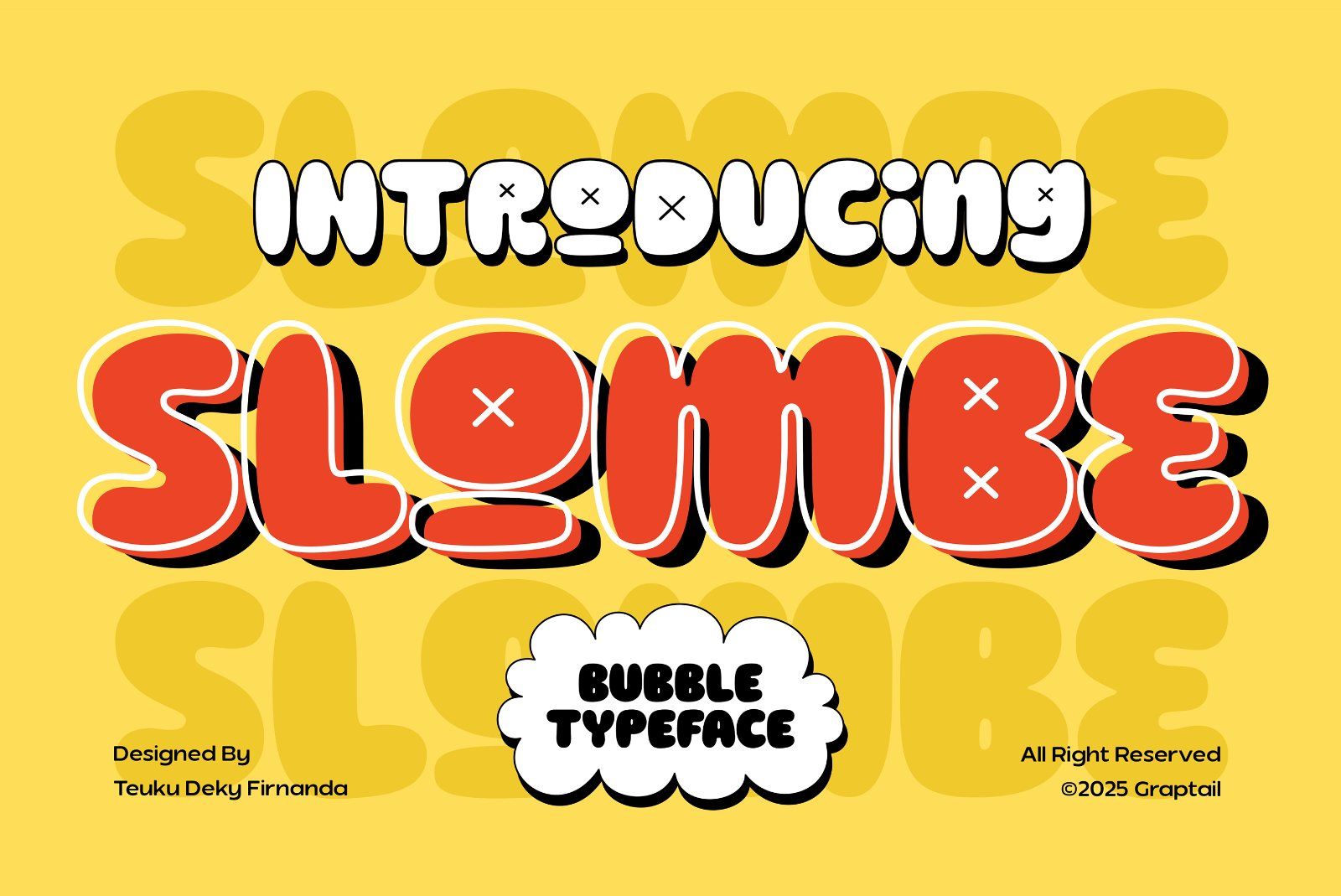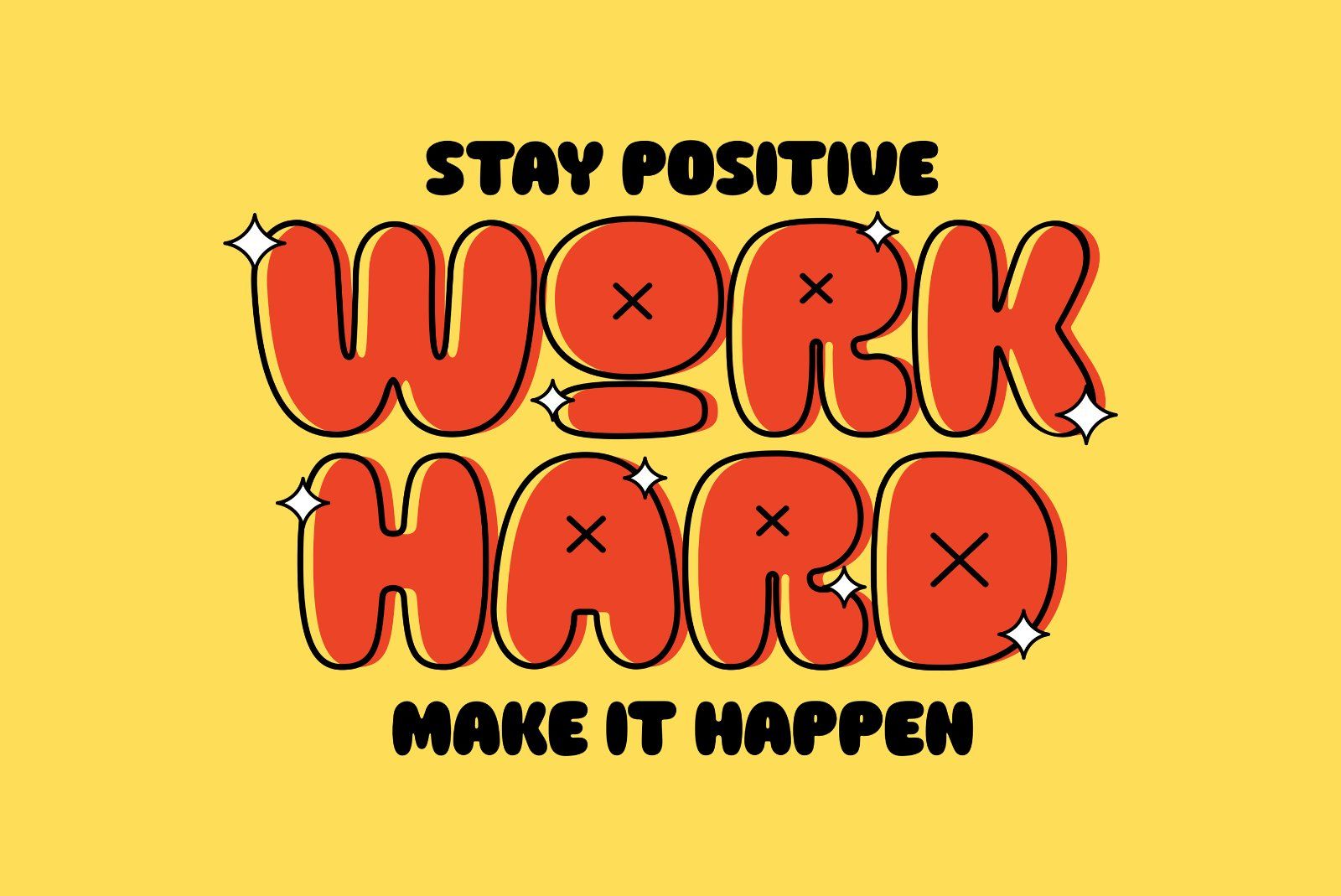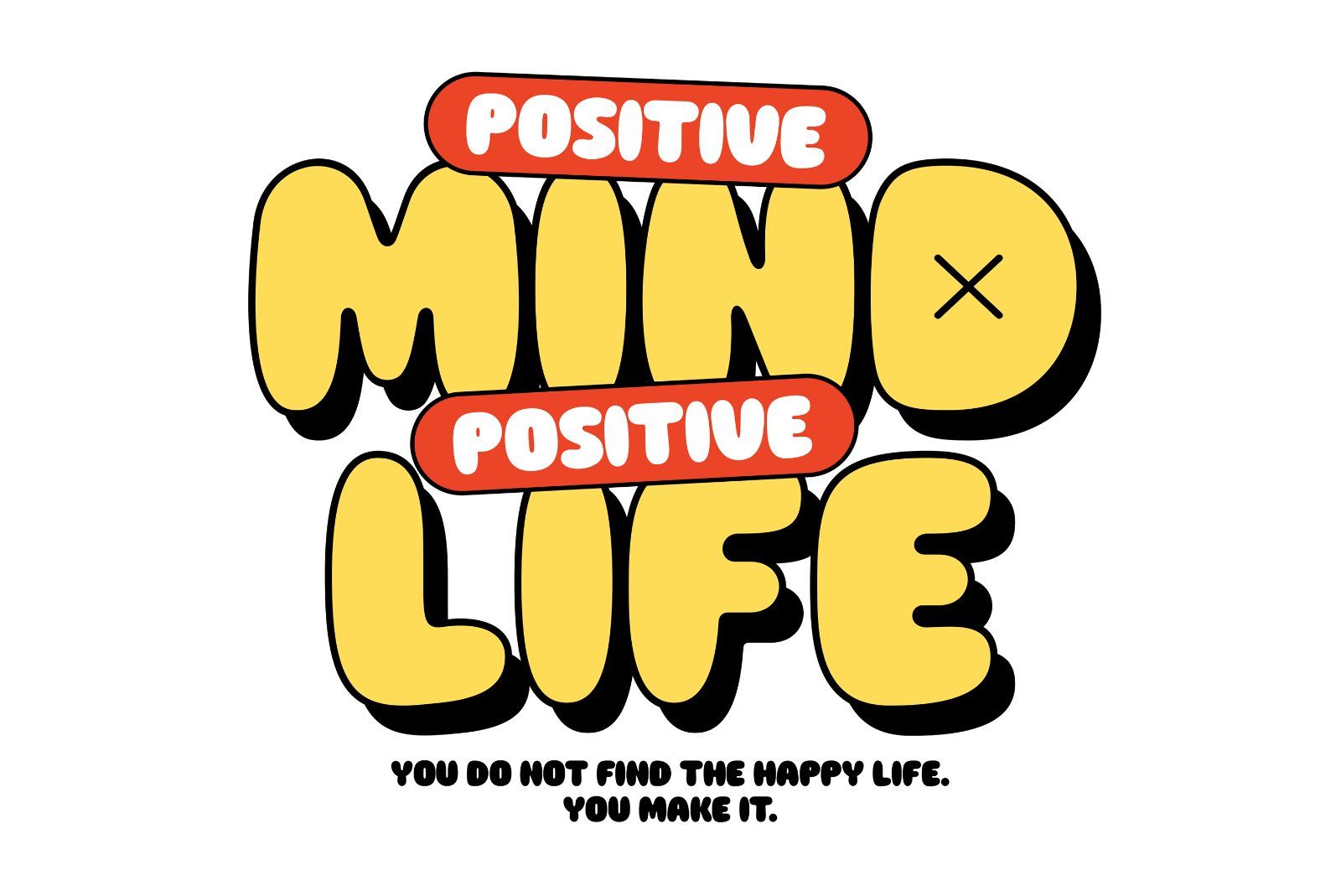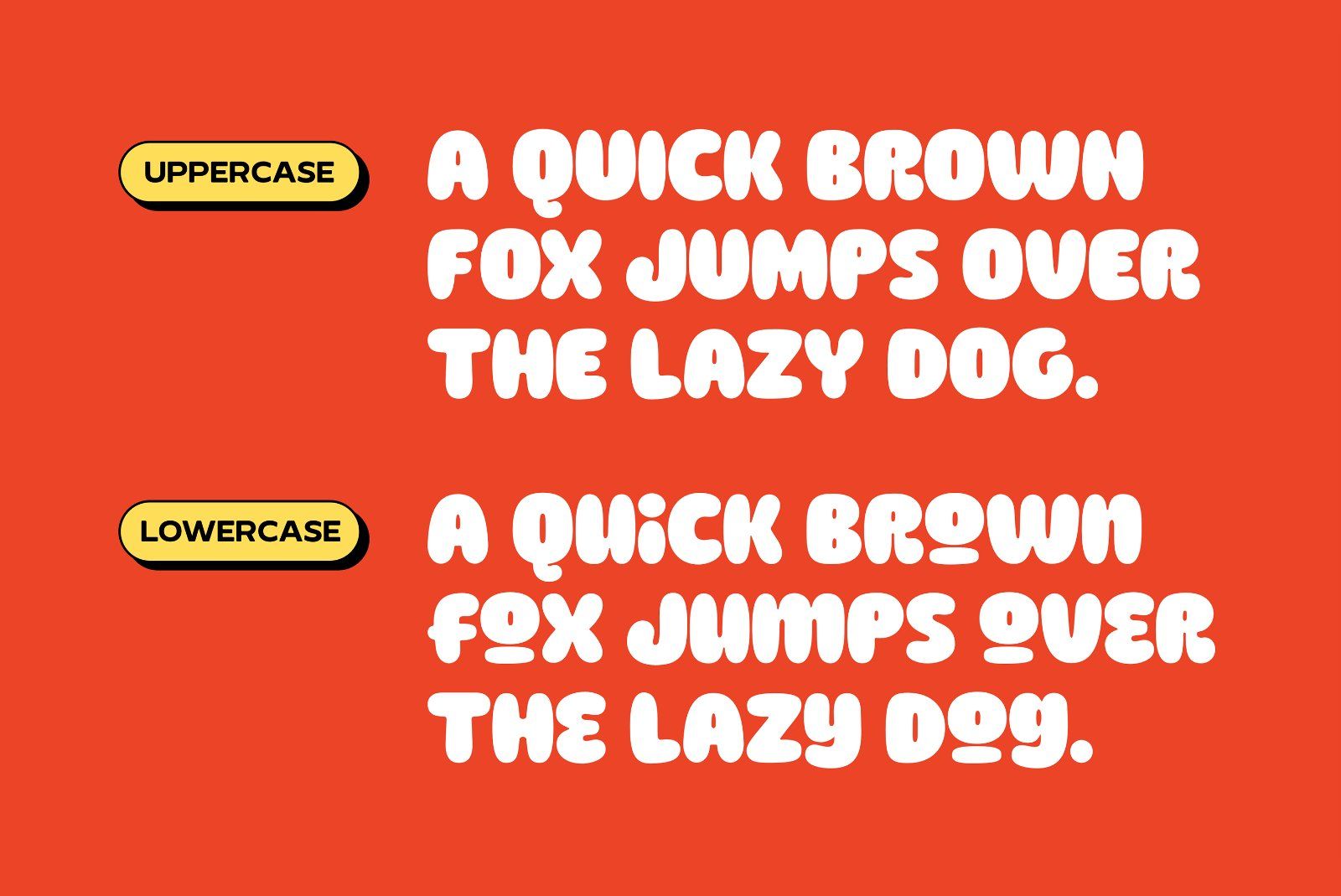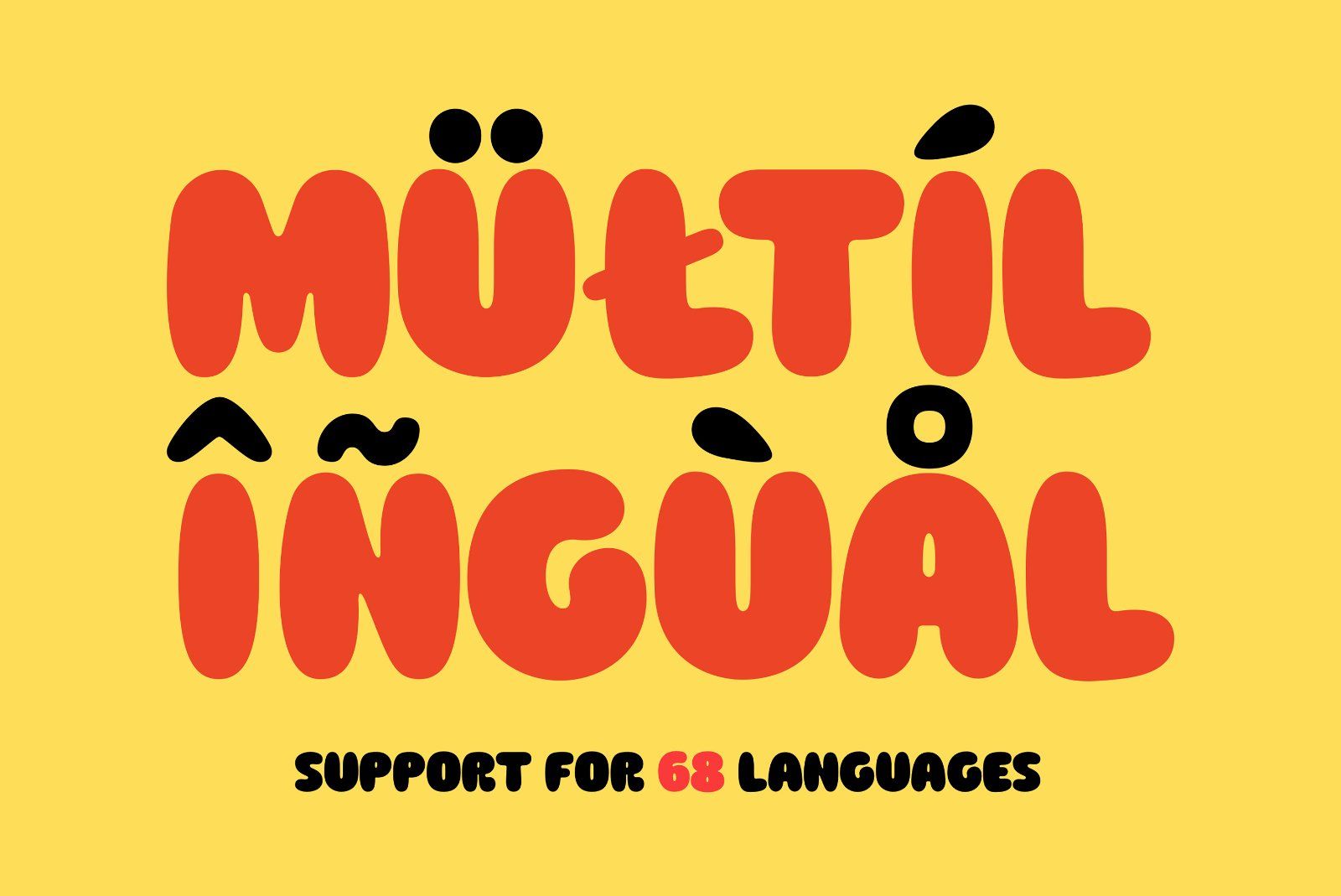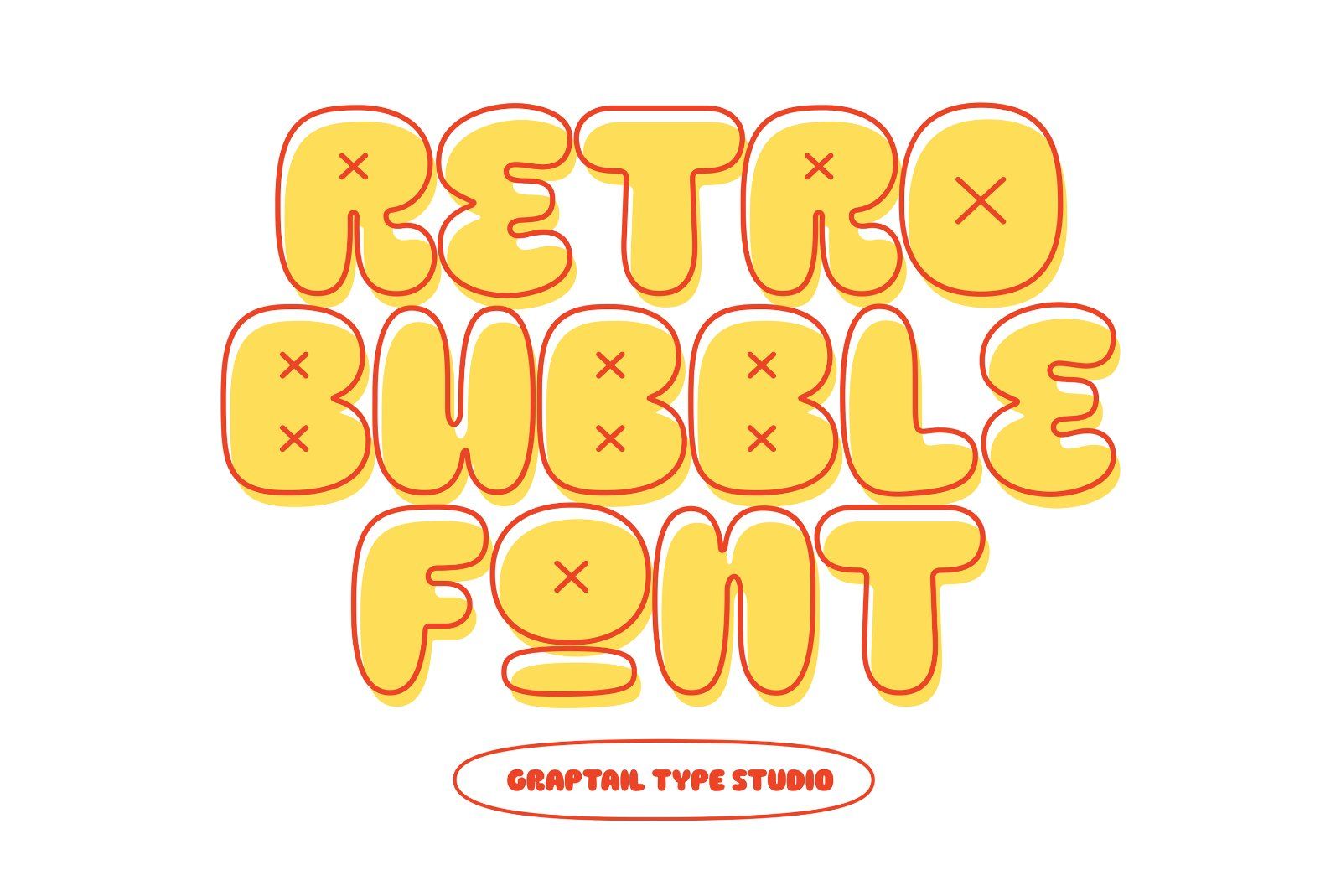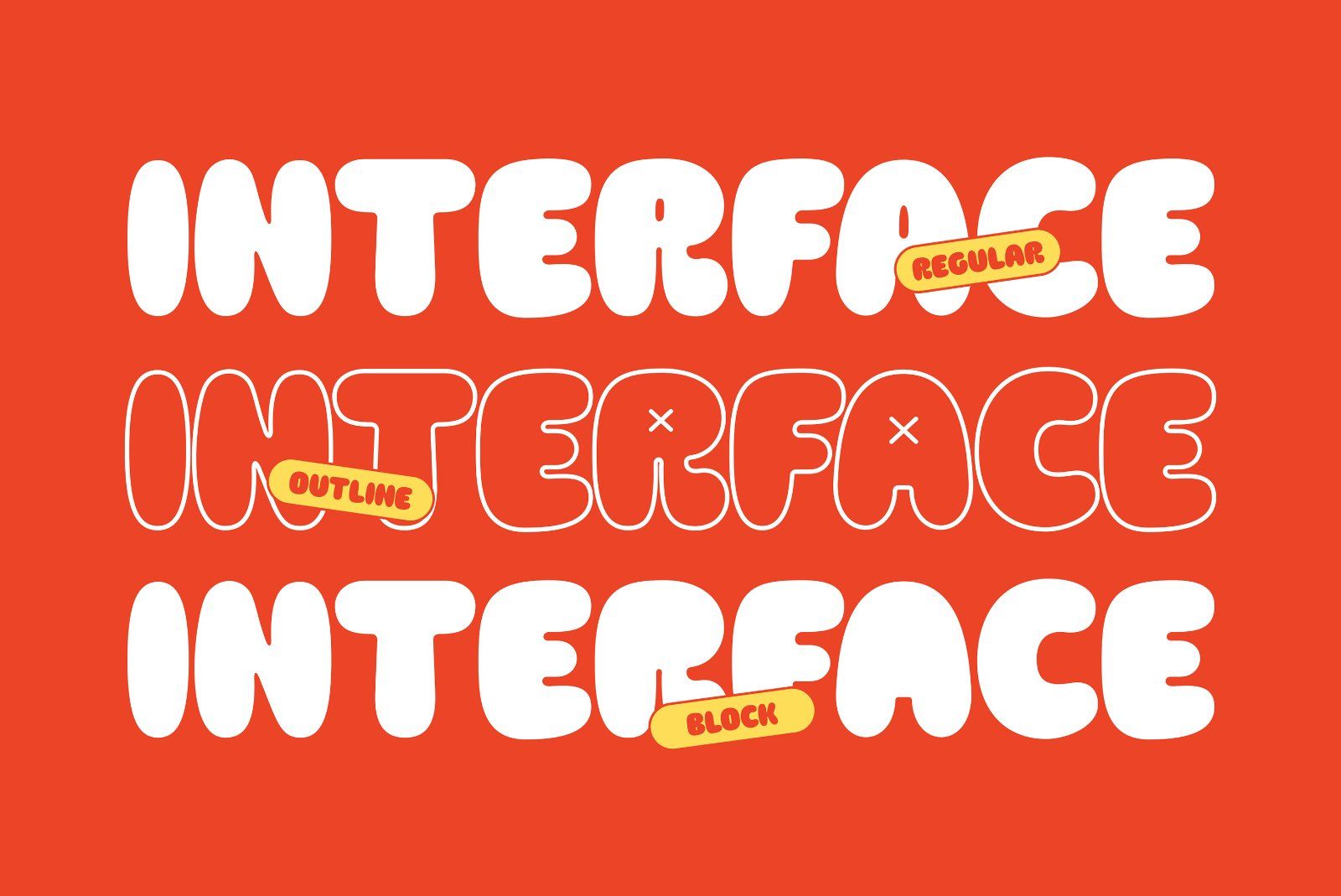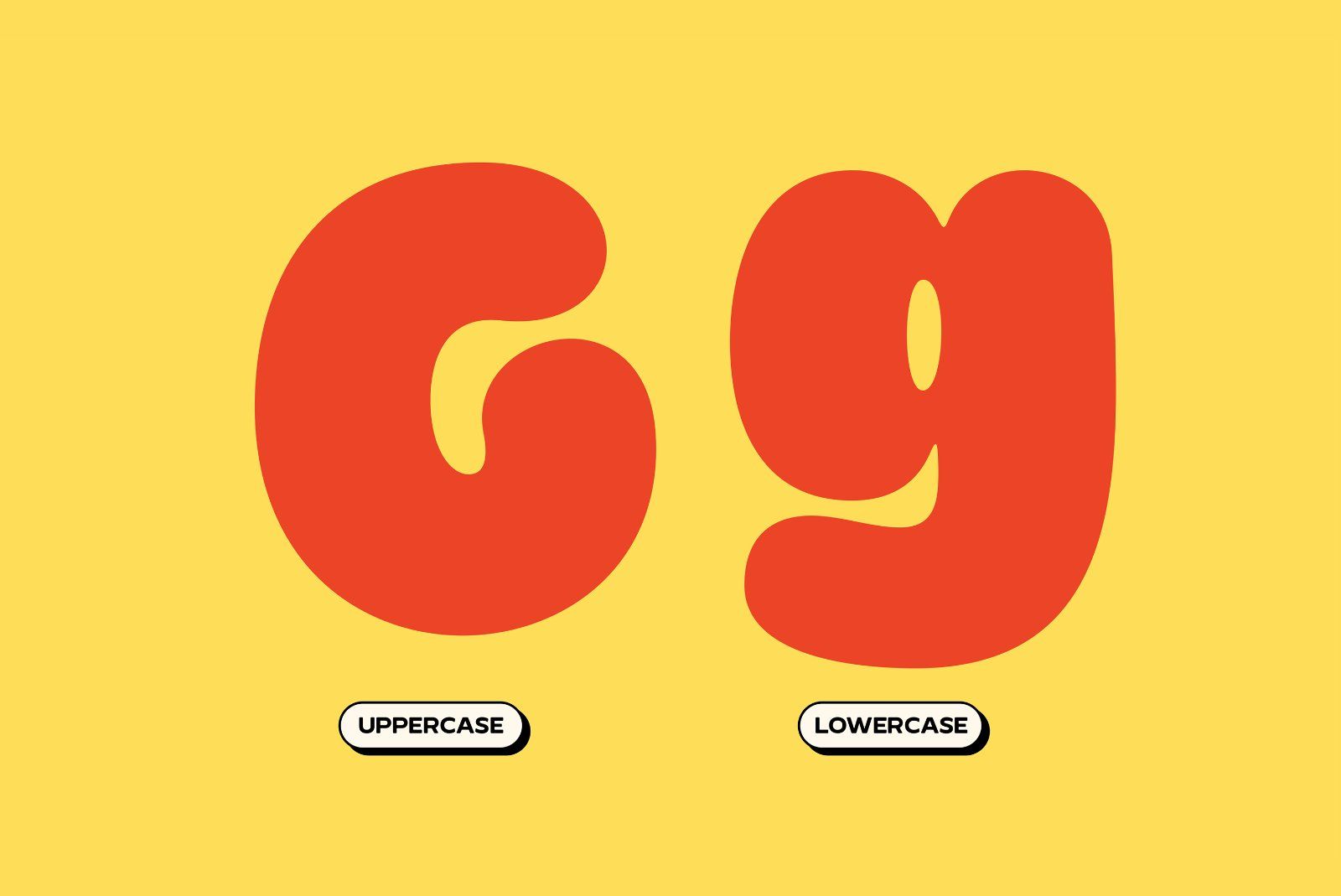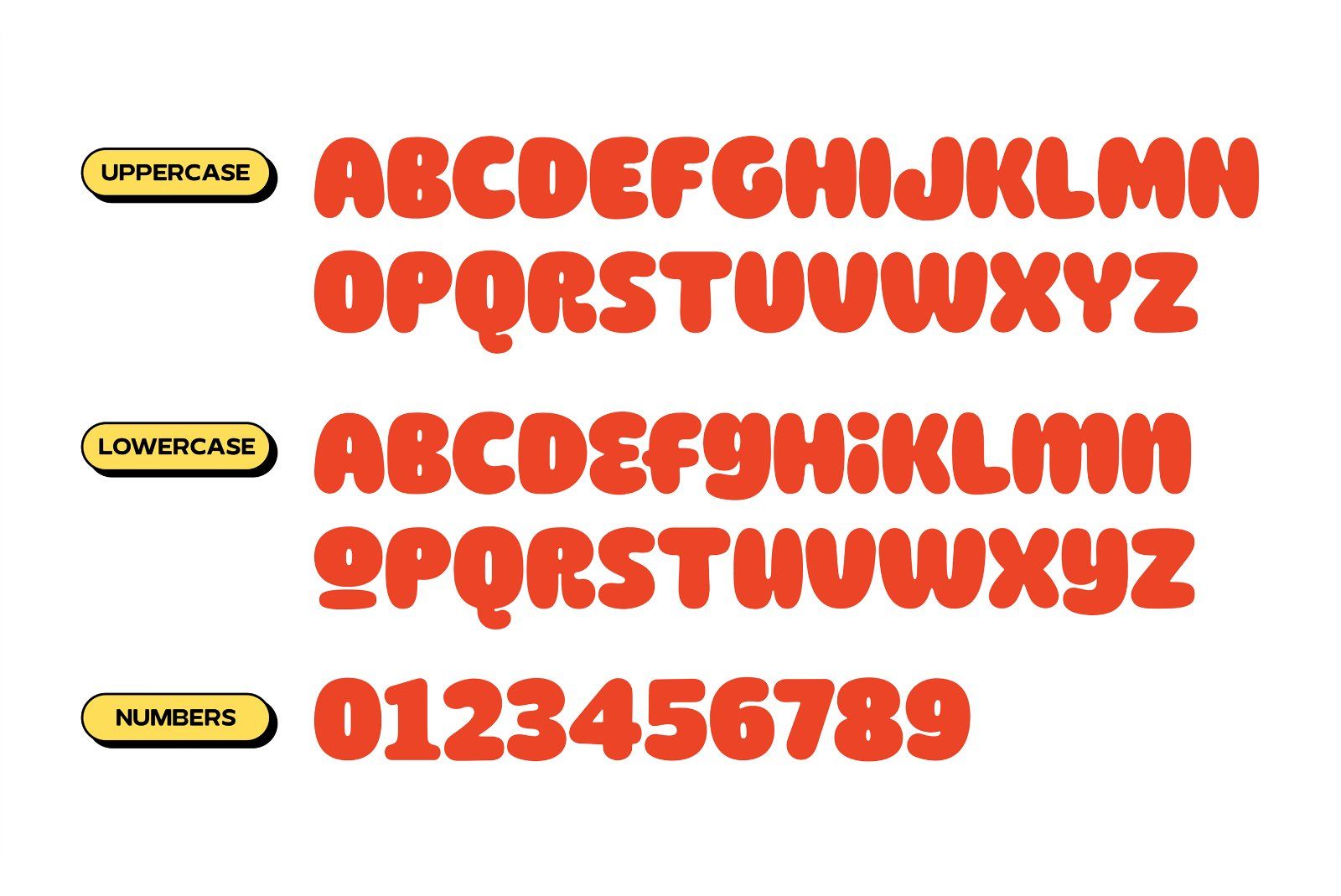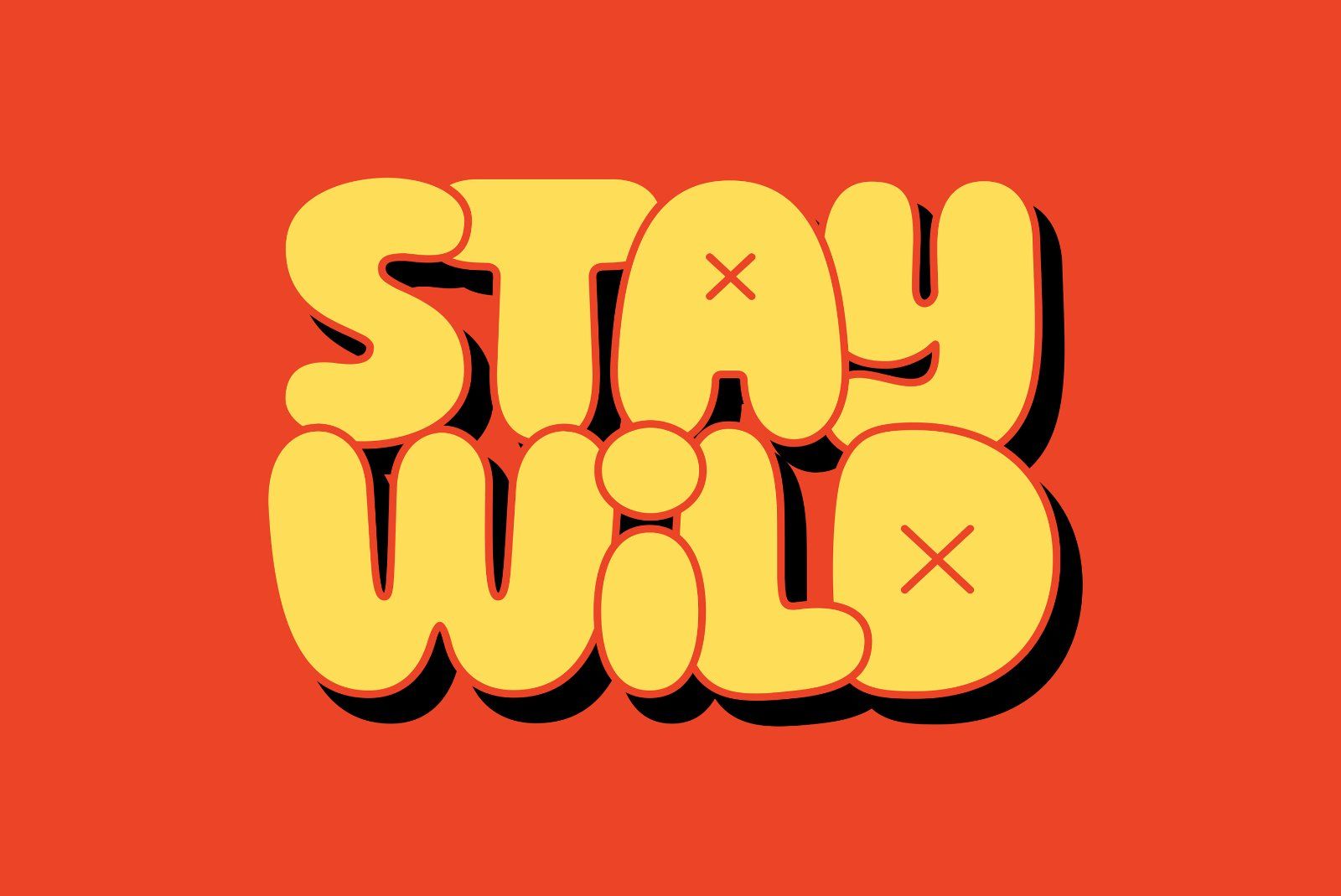
Slombe is a playful and bold Retro Bubble Typeface that brings a vibrant throwback vibe to your design projects. Inspired by the fun and funky aesthetics of the '70s to early 2000s, Slombe features chunky, rounded letterforms that radiate personality and joy.
This typeface comes in three distinctive styles to suit a variety of creative needs:
• Slombe Regular
• Slombe Block
• Slombe Outline
This font is perfect for creating nostalgic designs, such as retro/groovy posters, advertisements, and packaging. It's also great for creating unique and eye-catching titles and headings.